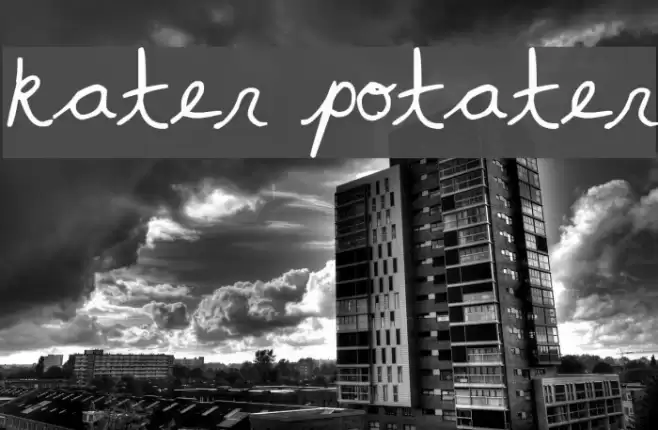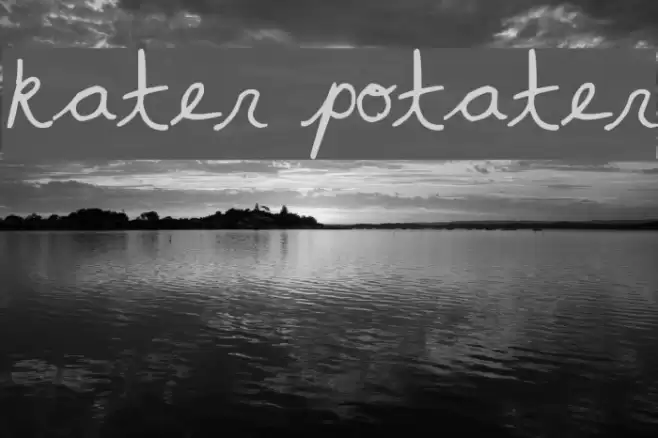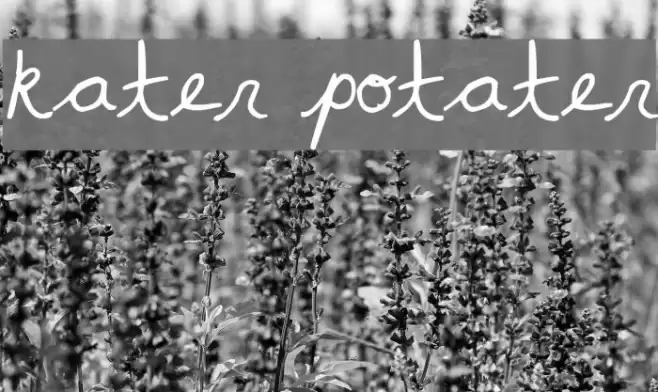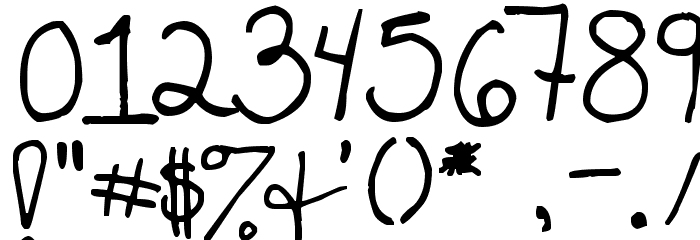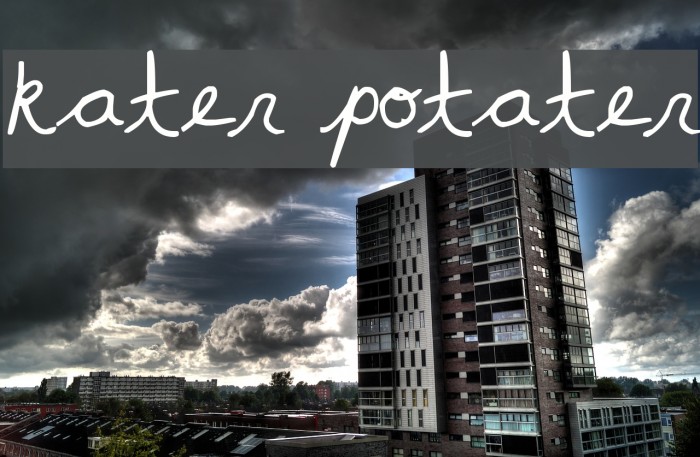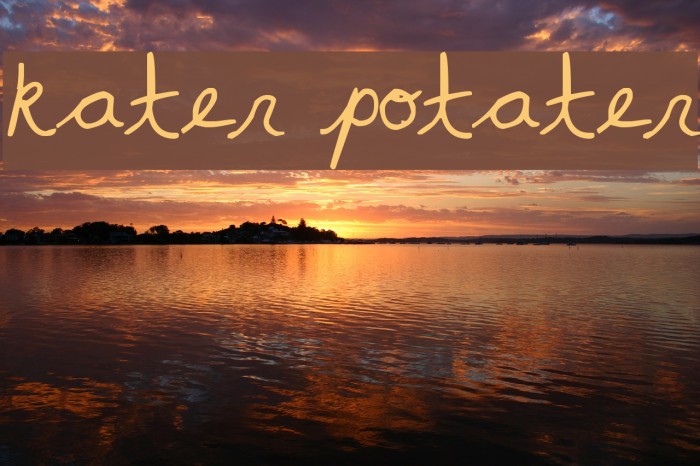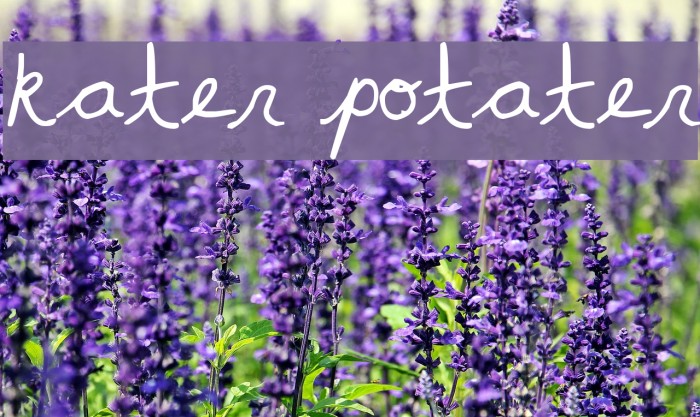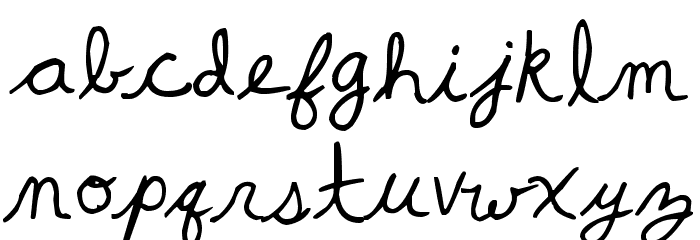
kater potater
This font exhibits a playful and casual handwritten style, characterized by its loose and flowing strokes. The uppercase letters are slightly taller and more elongated, while the lowercase letters maintain a consistent, rounded form. The numbers are bold and clear, making them easily readable. Special characters are creatively designed, adding to the font's whimsical nature. The overall appearance is informal and friendly, making it suitable for projects that require a personal touch. The strokes vary slightly in thickness, giving the font a dynamic and lively feel.
A playful, casual handwritten font with flowing strokes and a whimsical style.
- Proposed Projects: Ideal for greeting cards, children's books, casual branding, and social media graphics.
- Overall Style: Casual, Playful
- Use Case: Headlines, Informal text, Creative projects